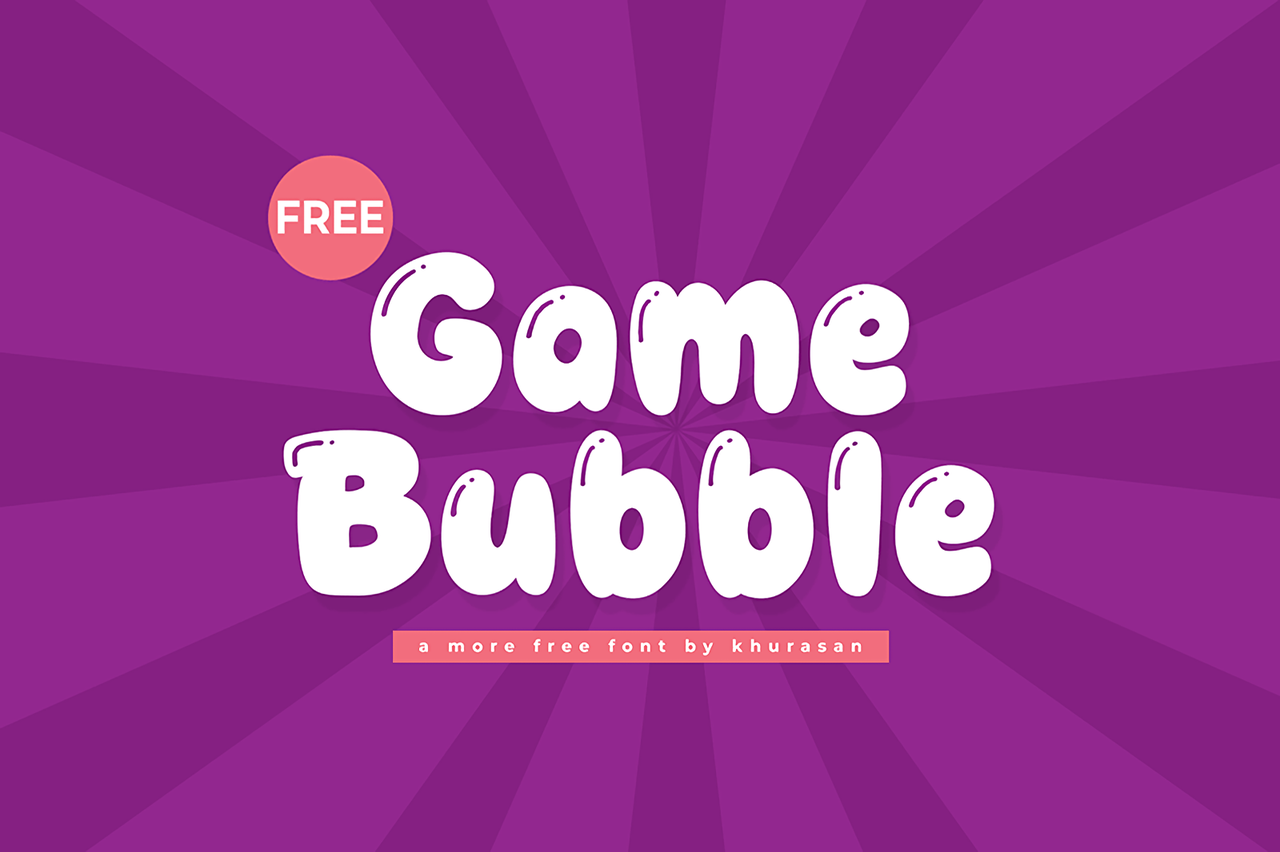
Game Bubble Font is a fun and modern display font designed to bring a playful touch to your creative projects. With its bubbly and charming style, this font is perfect for making eye-catching designs that capture attention. Whether you’re working on posters, logos, magazines, book covers, or banners, Game Bubble adds a unique and cheerful look to your artwork.
This versatile font blends seamlessly with various design themes, making it a great choice for both personal and professional projects. Its rounded and smooth lettering gives a soft, friendly feel, making it ideal for brands and creatives who want to add a fun, youthful vibe to their work. No matter the occasion, Game Bubble can help elevate your designs with its stylish and modern appeal.